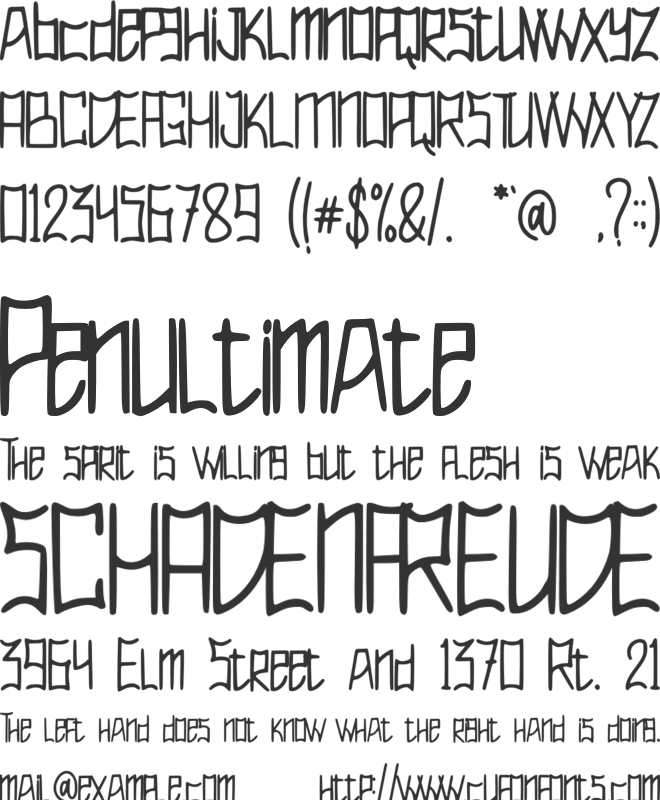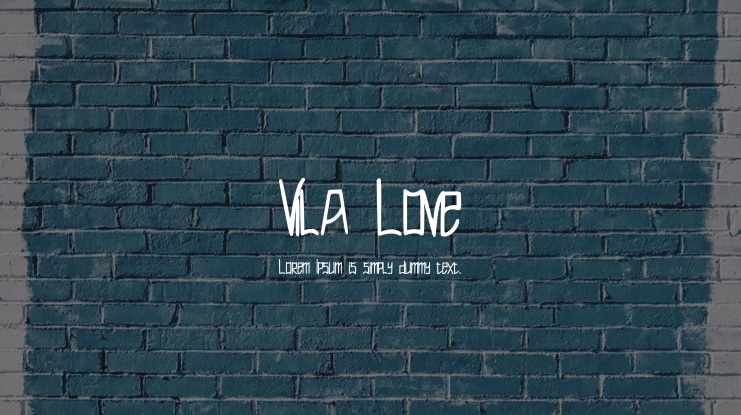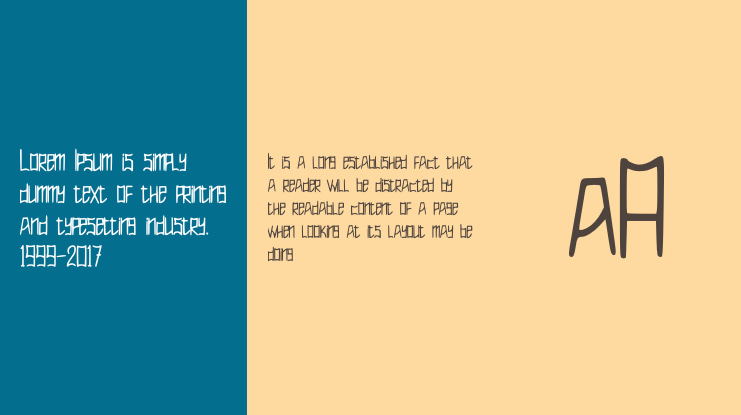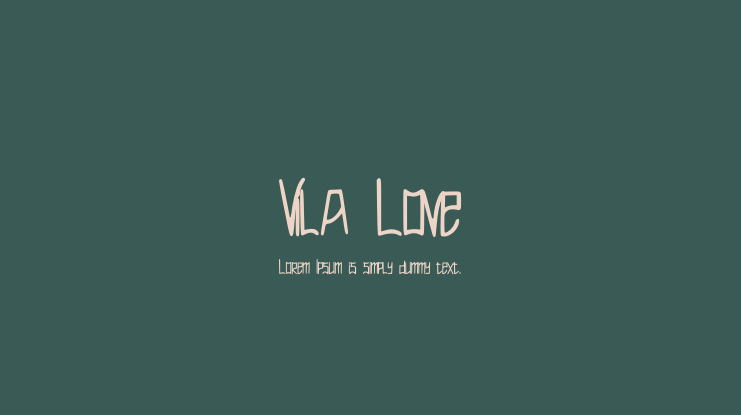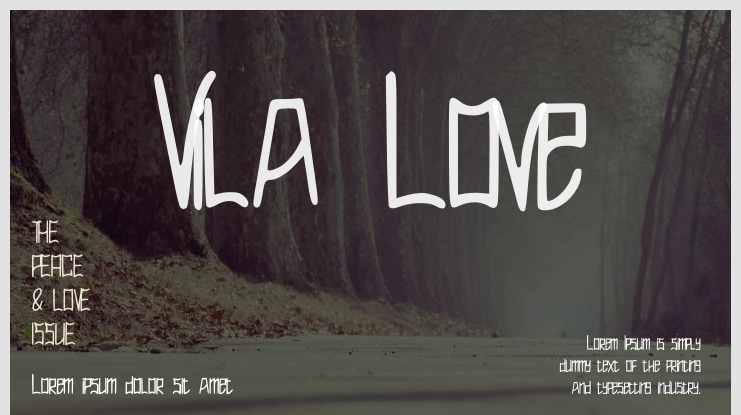
Vila Love Font
Vila Love is a striking display font infused with a romantic flair, making it perfect for headlines, posters, and branding. Its bold design and playful curves create a captivating visual impact, ideal for projects that require a charming and modern style.